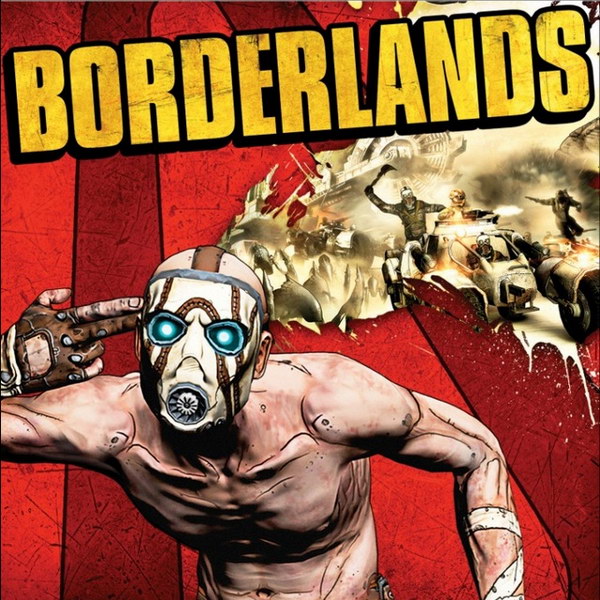
Borderlands Font
Fonts in UseBorderlands is a first-person shooter video game series developed by Gearbox Software. Set in a post-apocalyptic world, the games follow a group of "Vault Hunters" as they explore dangerous environments, complete quests, and unravel the mysteries of the alien technology known as the Vaults.
The font used for the Borderlands logo on its box art resembles Compacta Bold, a typeface designed by Fred Lambert in 1963. Compacta is a commercial font, and you can find more detailed information about it here.